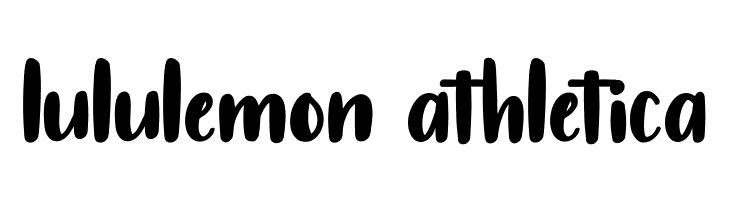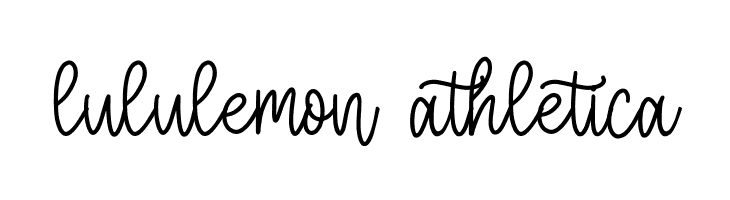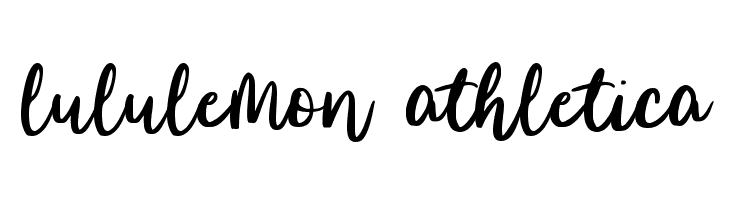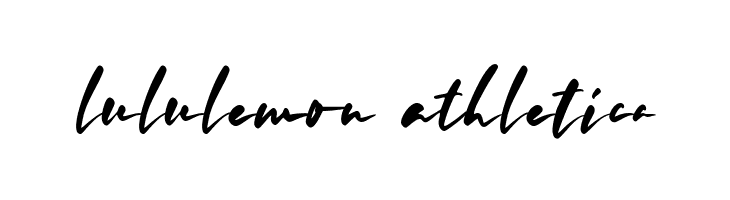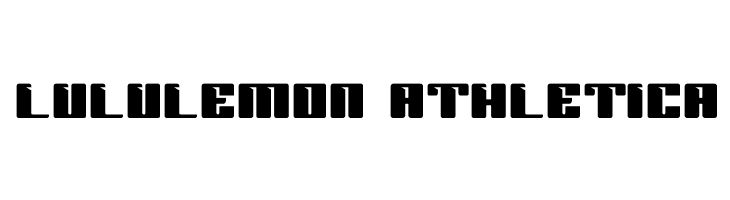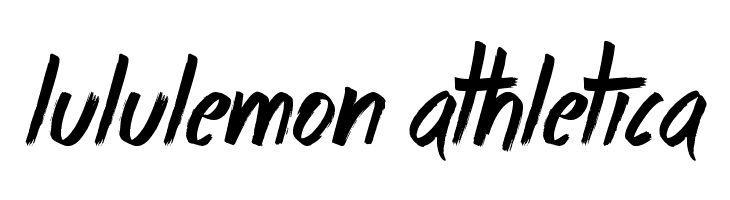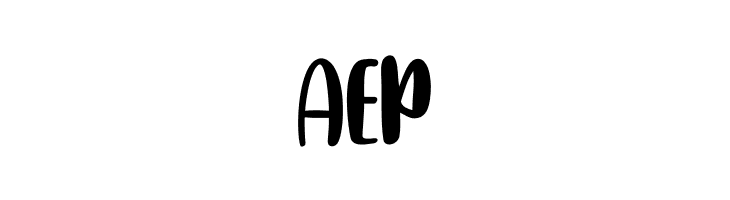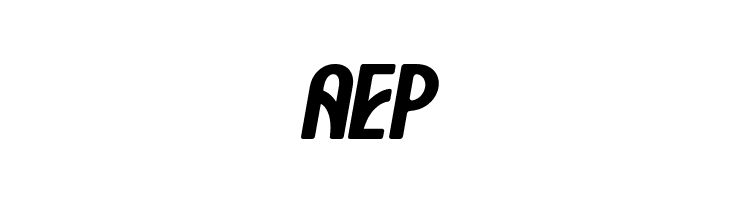
A bold, playful handwritten font with thick strokes and rounded edges.
A festive and elegant script font with a flowing, handwritten style.
A bold, flowing script font with a playful, hand-drawn style.
A dynamic, brush-style font with expressive, fluid strokes.
A bold, expressive handwritten font with dynamic brush strokes.
Bold geometric display font with industrial style.
A bold, rounded font with a modern and playful style.
A bold, slanted font with thick strokes and rounded edges, exuding energy and modernity.